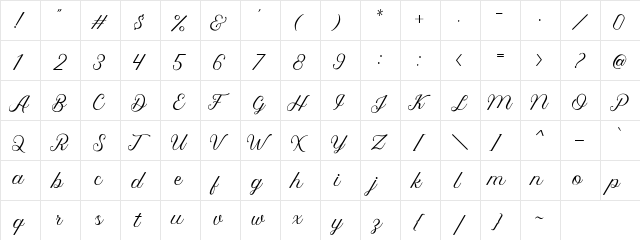
Royalite Script Regular
| Foundry | Sarid Ezra |
| Designer | Sarid Ezra |
Design Context for Royalite Script Typeface
Royalite Script brings a calligraphic fluidity to the page — its connecting strokes and expressive curves give it an unmistakably human quality.
Font Pairing: Combine Royalite Script with a simple geometric sans for maximum contrast — the tension between flowing curves and clean structure is a classic typographic pairing.
Pro Tip: Pair Royalite Script with a clean sans-serif for supporting text. The contrast between fluid script and geometric structure creates an elegant typographic hierarchy.